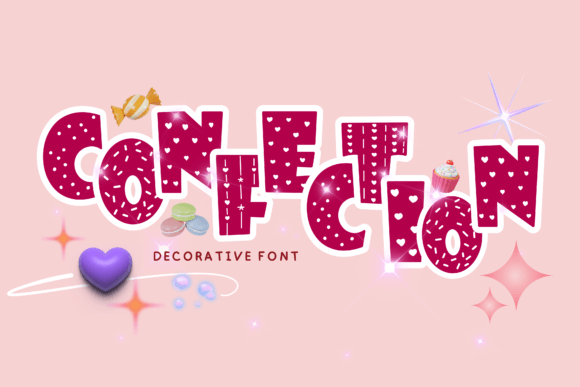
Introducing Confection: The Fashionably Handwritten Font for Expressive Design
In the world of typography, fonts play a crucial role in conveying emotions and adding personality to design projects. If you’re looking for a font that brings a touch of warmth and expressiveness to your creations, look no further than Confection. This beautifully handwritten font is designed to bring a sense of nostalgia and charm to your everyday notes, diaries, and design projects.
The Story Behind Confection
Confection is more than just a font – it’s a design experience. Its creator had a vision of crafting a typeface that would evoke feelings of warmth, comfort, and joy. With Confection, you can add a personal touch to your designs, making them feel more approachable and relatable. Whether you’re a designer, artist, or simply someone who loves to write, Confection is the perfect tool to help you express yourself.
The Versatility of Confection
One of the standout features of Confection is its versatility. While it’s perfect for casual notetaking and journaling, it’s also well-suited for a wide range of design projects. From greeting cards and banners to social media posts and customized merchandise, Confection’s charming and expressive lettering can elevate any design.
Key Features of Confection
- Fashionably Handwritten: Confection boasts a beautifully handwritten style that’s perfect for adding a personal touch to your designs.
- Expressive Warmth: This font is designed to bring a sense of warmth and comfort to your designs, making them feel more approachable and relatable.
- Versatile Charm: Confection’s charm extends beyond casual notetaking, making it perfect for a wide range of design projects.
- Unique Character: With its distinctive lettering and attention to detail, Confection is sure to make your designs stand out.
Using Confection for Design Projects
So, how can you use Confection in your design projects? The possibilities are endless! Here are a few ideas to get you started:
Design Ideas with Confection
- Greeting Cards: Add a personal touch to your greeting cards with Confection’s beautifully handwritten lettering.
- Themed Banners: Create eye-catching banners with Confection’s charming and expressive lettering.
- Social Media Posts: Elevate your social media posts with Confection’s unique and attention-grabbing typography.
- Customized Merchandise: Add a touch of personality to your customized merchandise, such as mugs, shirts, and tote bags, with Confection.
- Stationery: Create beautiful stationery with Confection’s elegant and refined lettering.
Why Choose Confection?
With so many fonts available, why choose Confection? Here are just a few reasons why Confection stands out:
Why Confection?
- Unique Style: Confection’s fashionably handwritten style sets it apart from other fonts.
- Emotional Connection: Confection’s expressive warmth helps create an emotional connection with your audience.
- Versatility: Confection can be used for a wide range of design projects, from casual notetaking to professional designs.
- Ease of Use: Confection is easy to use and pairs well with a variety of other fonts and design elements.
In conclusion, Confection is a beautifully handwritten font that’s perfect for adding a touch of warmth and expressiveness to your design projects. With its versatile charm, unique character, and ease of use, Confection is sure to become a favorite in your design toolkit. Whether you’re a designer, artist, or simply someone who loves to write, Confection is the perfect tool to help you express yourself and bring your creative vision to life.